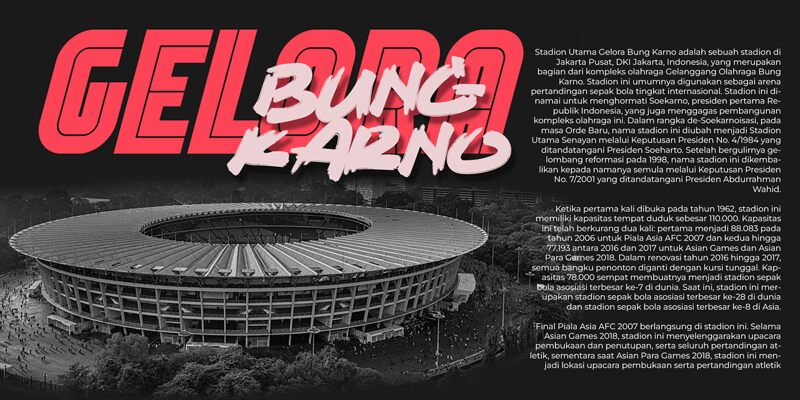
Silver Thorne font by Mocha Frappuccino is a free brush font with modern and dynamic aesthetics. Drawing inspiration from retro influences while maintaining a contemporary appeal, the font is expressive and full of energy that makes it one-of-a-kind. Tall characters with a delicate bold contrast make this font inspired by sports, giving it an eye-catching and energetic appearance with a strong presence.
The rebellious character of this font makes it a suitable addition for projects like branding, business cards, publishing, logotypes, quotes, packaging, posters, headers, website graphics, and billboards. Throw a combination of the available characters at titles, headlines, or body text for exciting visuals.